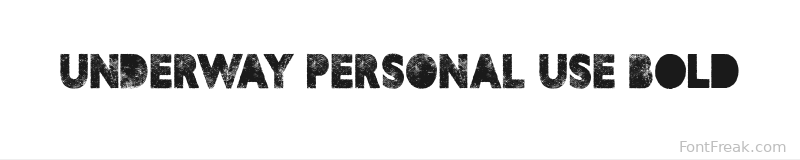
UNDERWAY PERSONAL USE Bold
UNDERWAY PERSONAL USE Bold is a striking display font designed by Billy Argel Fonts, categorized as a bold, decorative typeface. This font captures attention with its rugged, distressed appearance, characterized by uneven stroke weights that convey a sense of authenticity and rawness. The bold characters feature substantial contrast, allowing for easy readability while maintaining an edgy aesthetic. The spacing is tight yet balanced, enhancing its impactful presence on any design project.
This font is particularly well-suited for a variety of creative applications. Its unique style makes it an excellent choice for wedding invitations where a touch of individuality is desired, or for movie posters that aim to evoke excitement and drama. Additionally, UNDERWAY PERSONAL USE Bold can enhance restaurant menus by adding a contemporary flair, making dishes stand out to patrons. It’s also a great fit for branding projects, particularly those targeting younger audiences or lifestyle brands seeking a distinctive voice.
The target audience for this font includes graphic designers looking to make bold statements in their work, small business owners aiming to create memorable branding, and content creators who wish to add personality to their projects. The rugged charm of UNDERWAY PERSONAL USE Bold appeals to those who appreciate a creative edge in their typography.
What sets this font apart is its ability to blend a vintage feel with modern design sensibilities. The distressed texture gives it character, making it not just a typeface but a visual statement. For anyone interested in elevating their design projects, the UNDERWAY PERSONAL USE Bold font free download is an opportunity to infuse creativity and impact into their work.